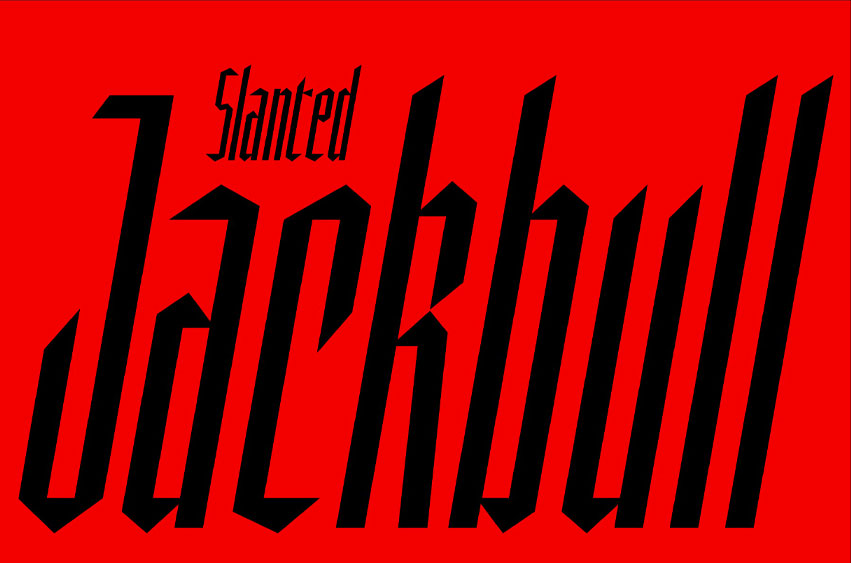
Jackbull Slanted Font is an eye-catching display typeface that blends contemporary vintage flair with the bold complexities of blackletter. With its Textura roots, this towering Fraktur font is eye-catching and ideal for making a statement. It supports multilingual characters, comes in Slanted styles, and provides stylistic sets and ligatures to help you express your creativity with typography.
Remember that size counts. For headlines, posters, and any other project where you want to make an impression, Jackbull works best at 72 points and up to preserve its fine details and legibility.